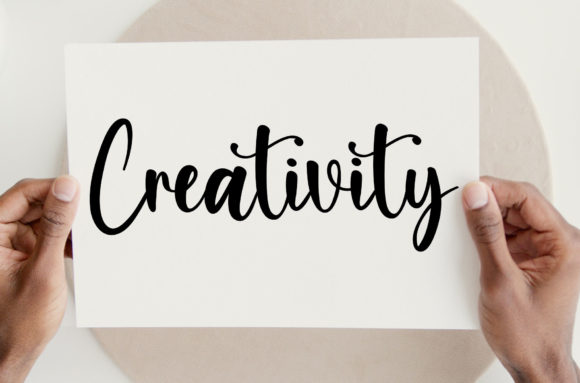
Introduction to New Biscuits Font Font
Fonts play a crucial role in design, and the New Biscuits Font font is a typeface that brings both character and versatility to any project. Whether you’re working on a branding project, a website, or a print design, the New Biscuits Font font offers a unique style that can elevate your work.
New Biscuits is a handwritten font that is smooth, elegant and with character.
It has a beautiful and balanced design and as a result, fits into a wide design pool Add to your most creative ideas and watch how they come to life.
Key Features of New Biscuits Font Font
Why Choose New Biscuits Font Font?
The New Biscuits Font font is more than just a typeface – it’s a design tool that helps you communicate your message with style and clarity. Its unique character set and versatile design make it suitable for a wide range of applications, from elegant invitations to bold headlines.
With its carefully crafted letterforms and balanced proportions, the New Biscuits Font font ensures readability and visual appeal across all mediums.
What makes New Biscuits Font font special?
The New Biscuits Font font stands out with its unique design, exceptional readability, and versatility across various design applications.